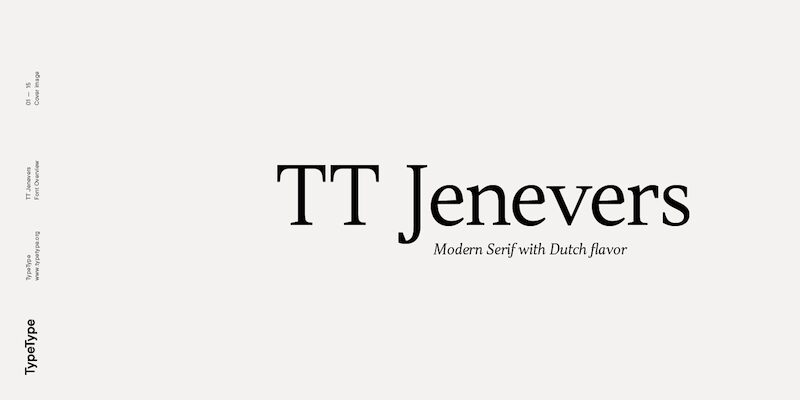
TT Jenevers Trl Italic
TT Jenevers Italic is a stunning serif font that exudes sophistication and elegance. Designed by TypeType Foundry, this font family is perfect for projects that require a touch of class and refinement. Its italic style adds a unique twist to the traditional serif font, making it ideal for branding materials, book covers, and editorial designs. Its versatility makes it suitable for both digital and print media, while its semi-bold width provides enough weight to make headlines stand out without overpowering the body text. With TT Jenevers Italic as your font of choice, your designs will always look polished and professional.
TT Jenevers Trl